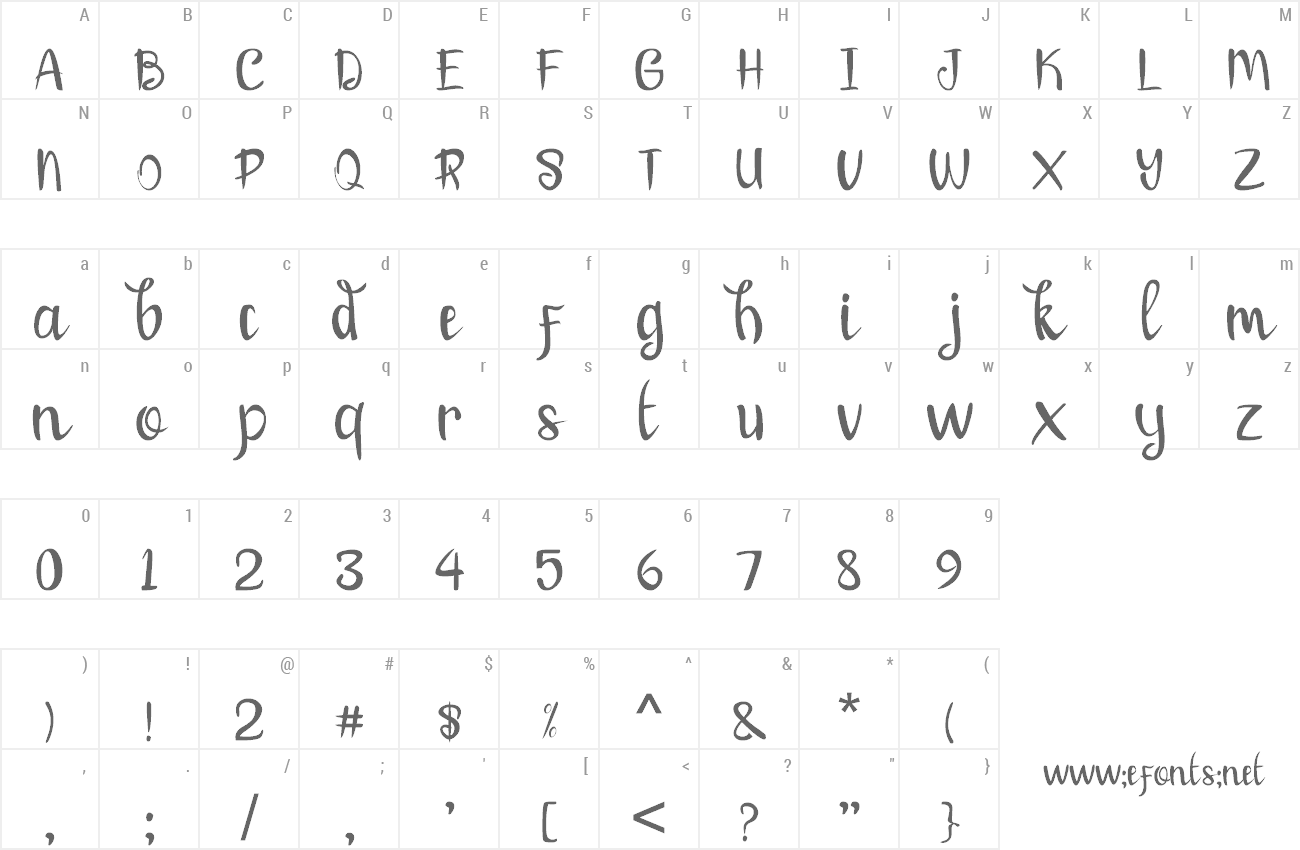
| Font name: | Lovely Honey |
| Author: | Artspace Design |
| Note by Artspace Design | |
| The Lovely Honey is a new fresh and modern typeface, it can be use for greeting card, branding material, quotes, posters, |